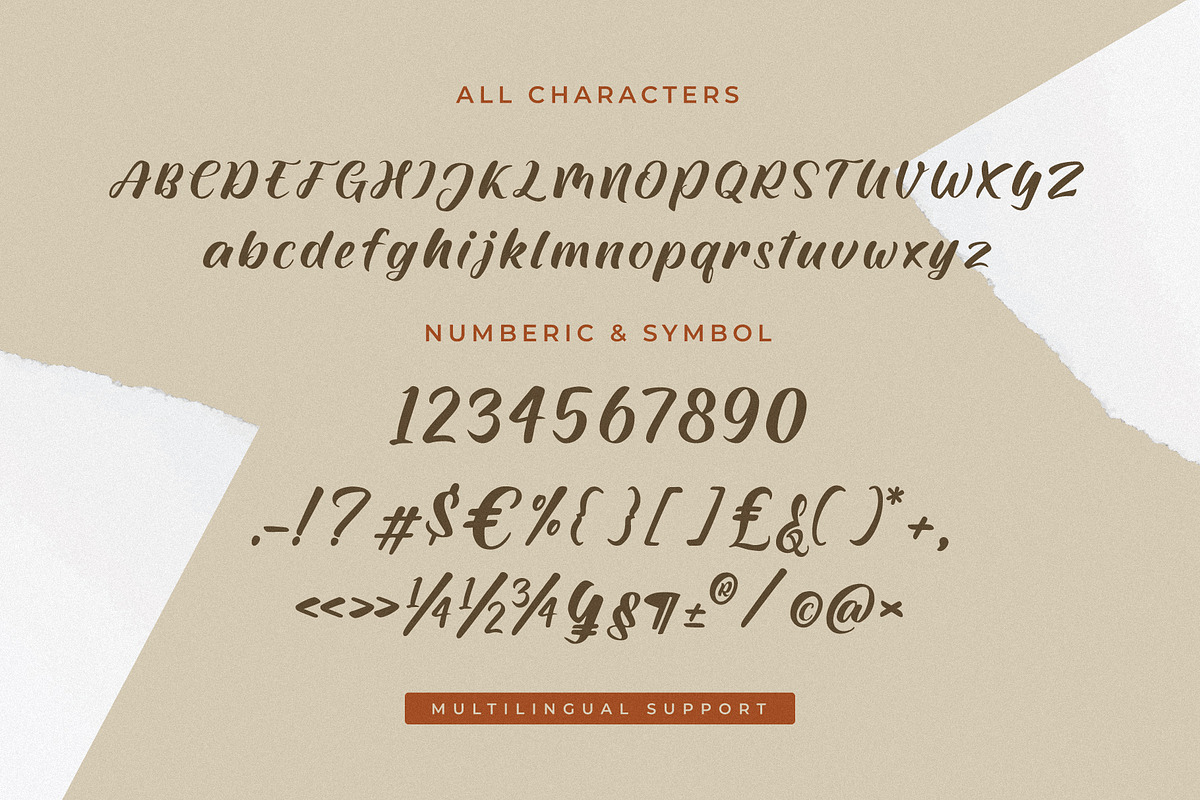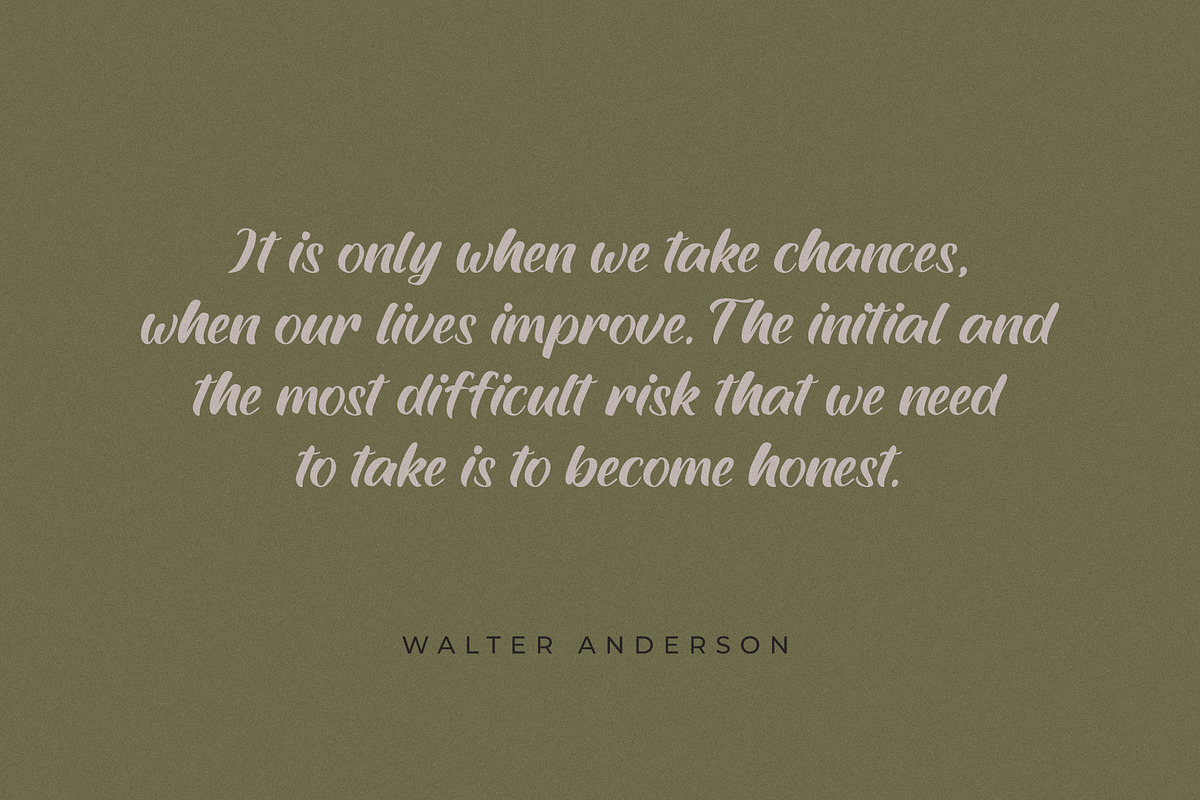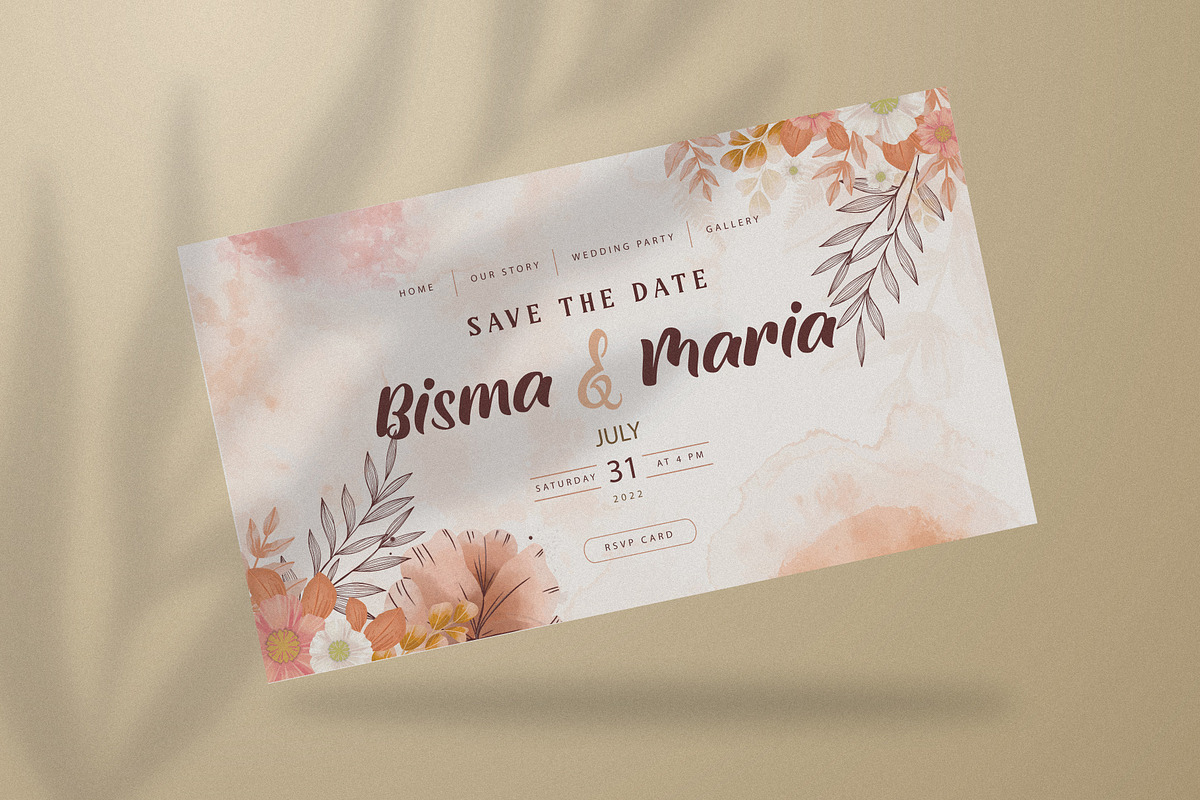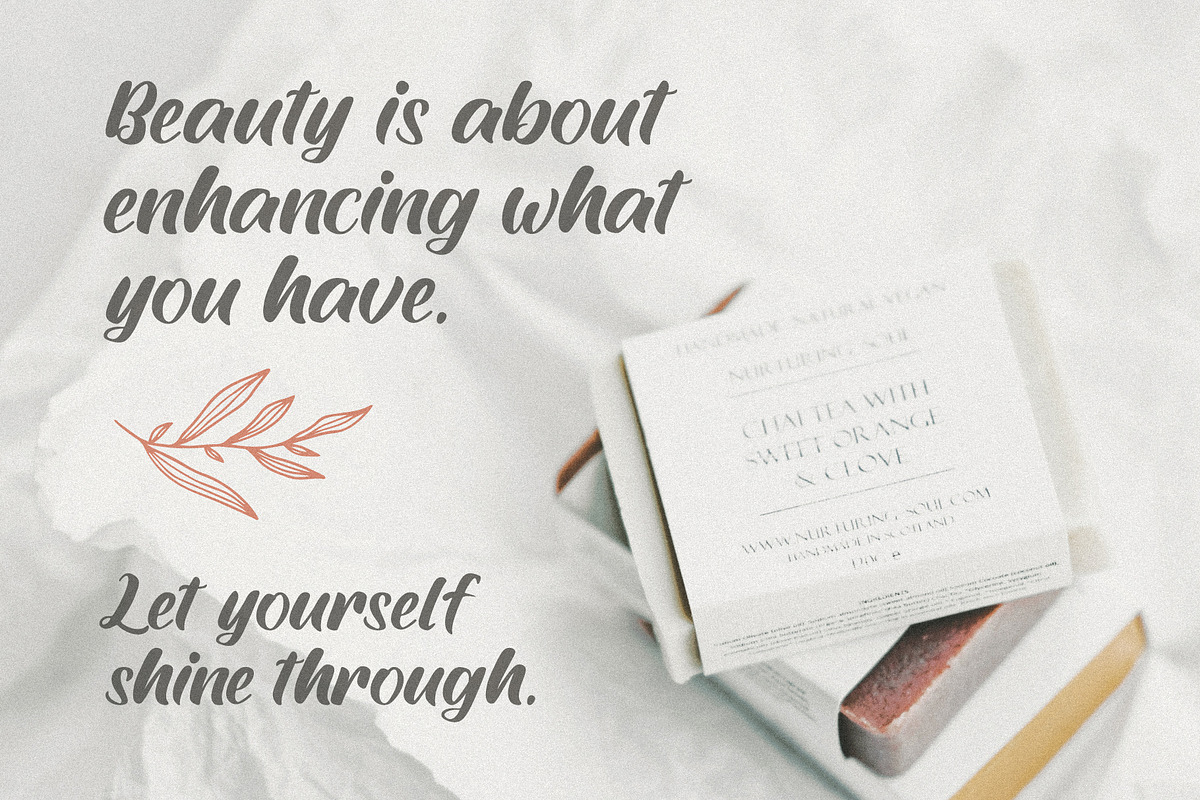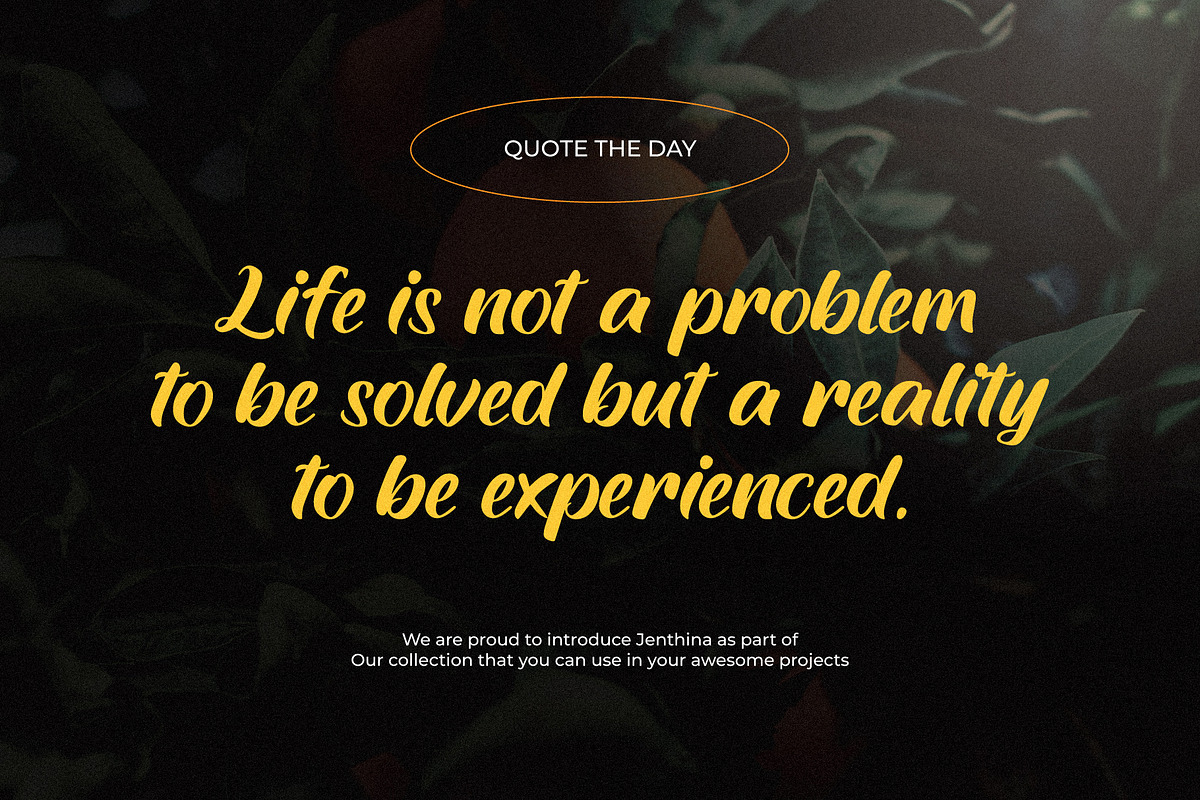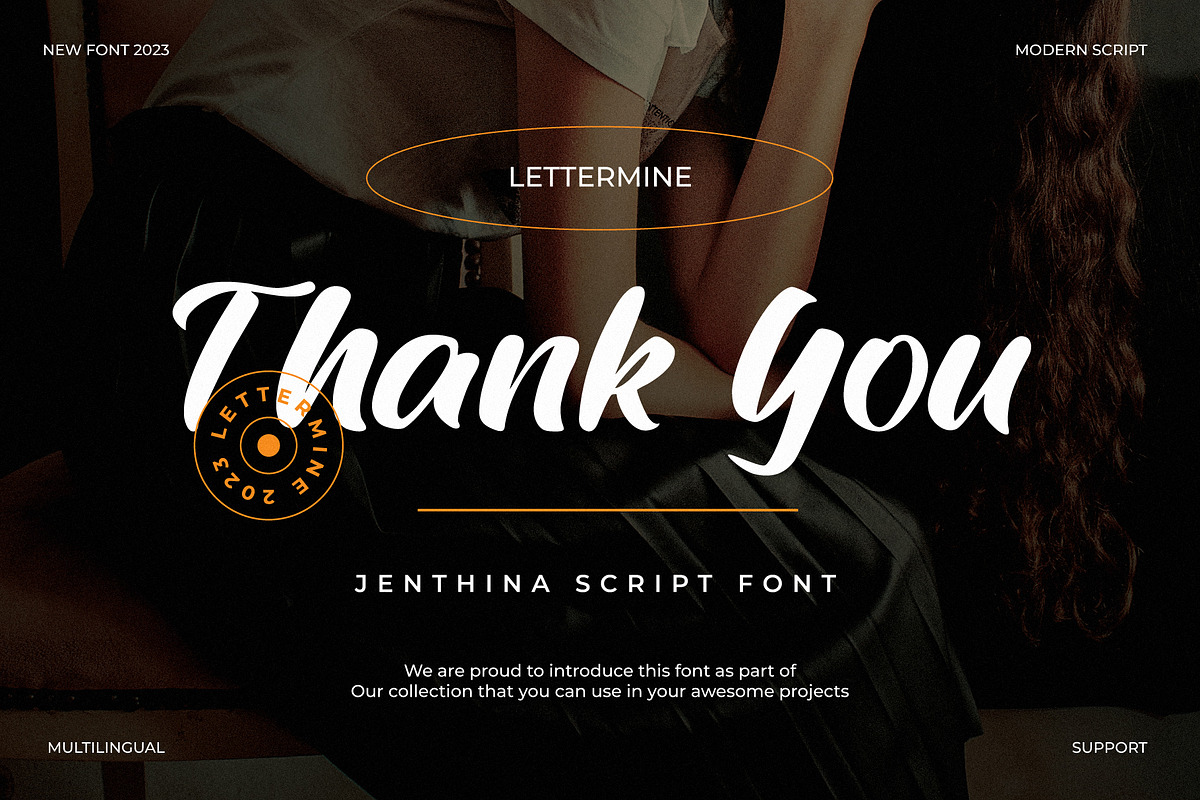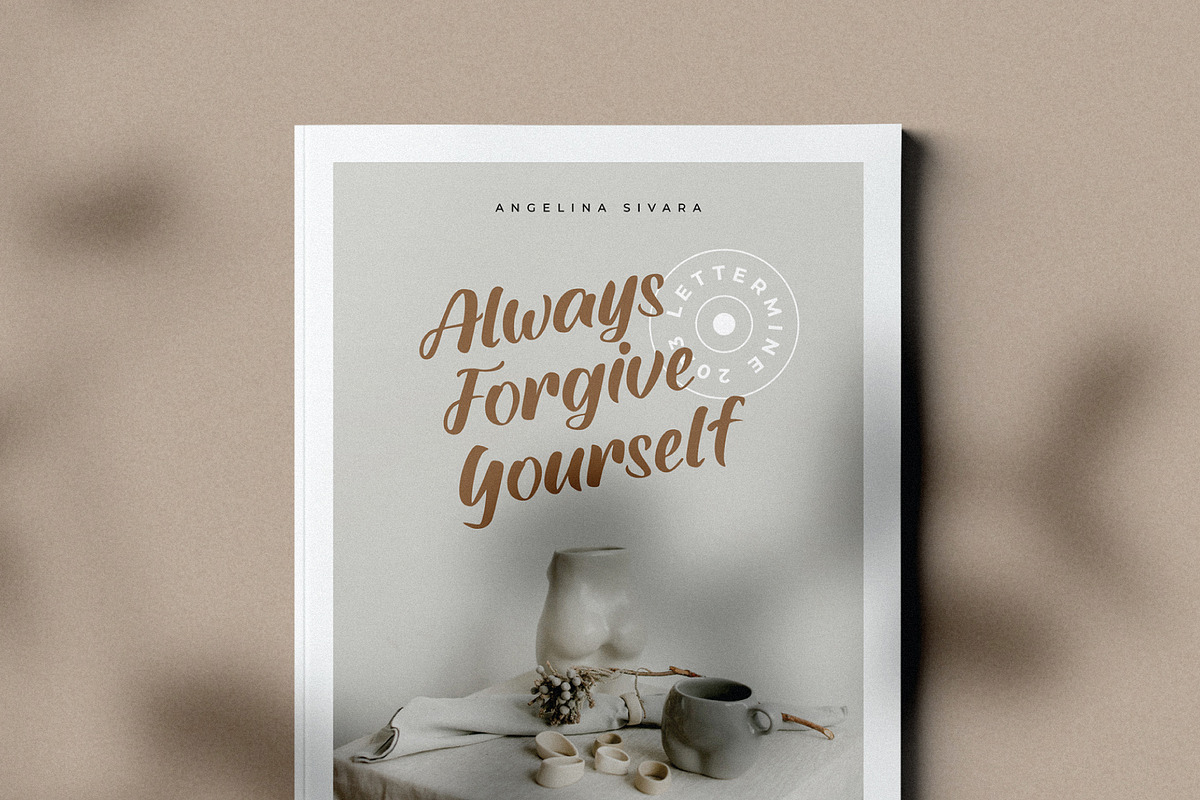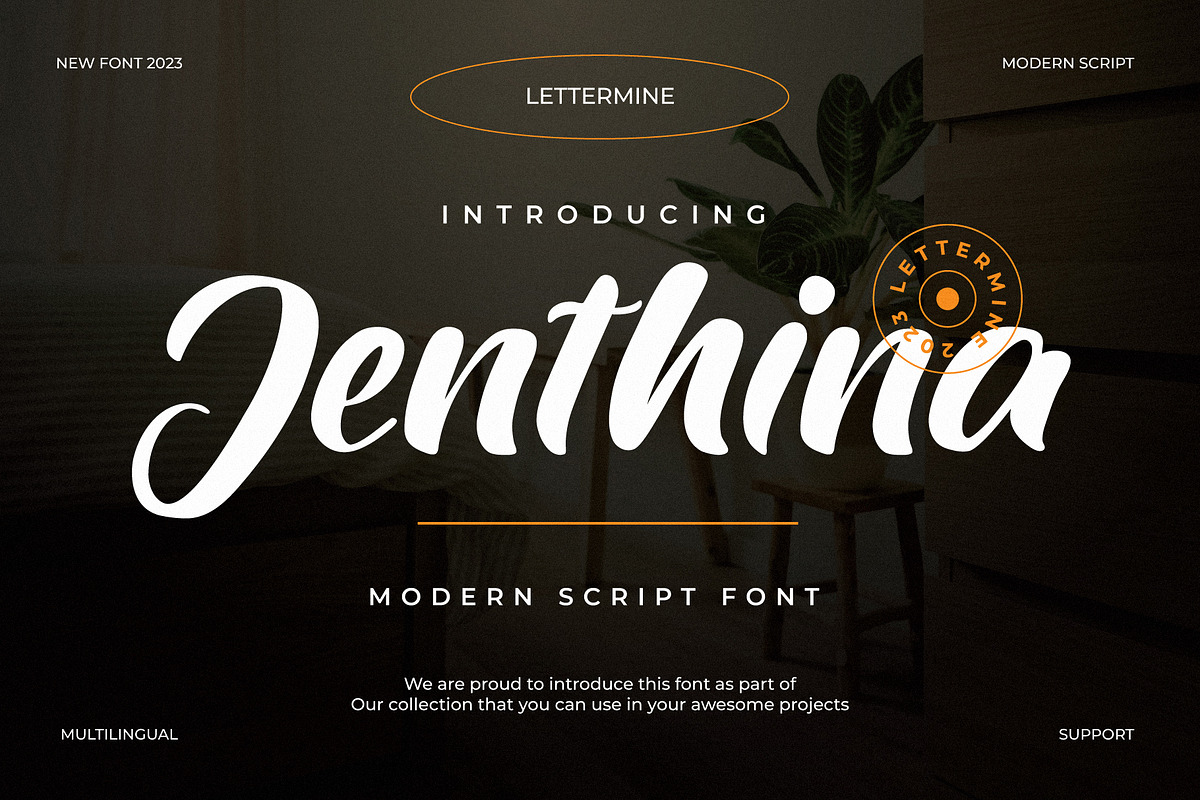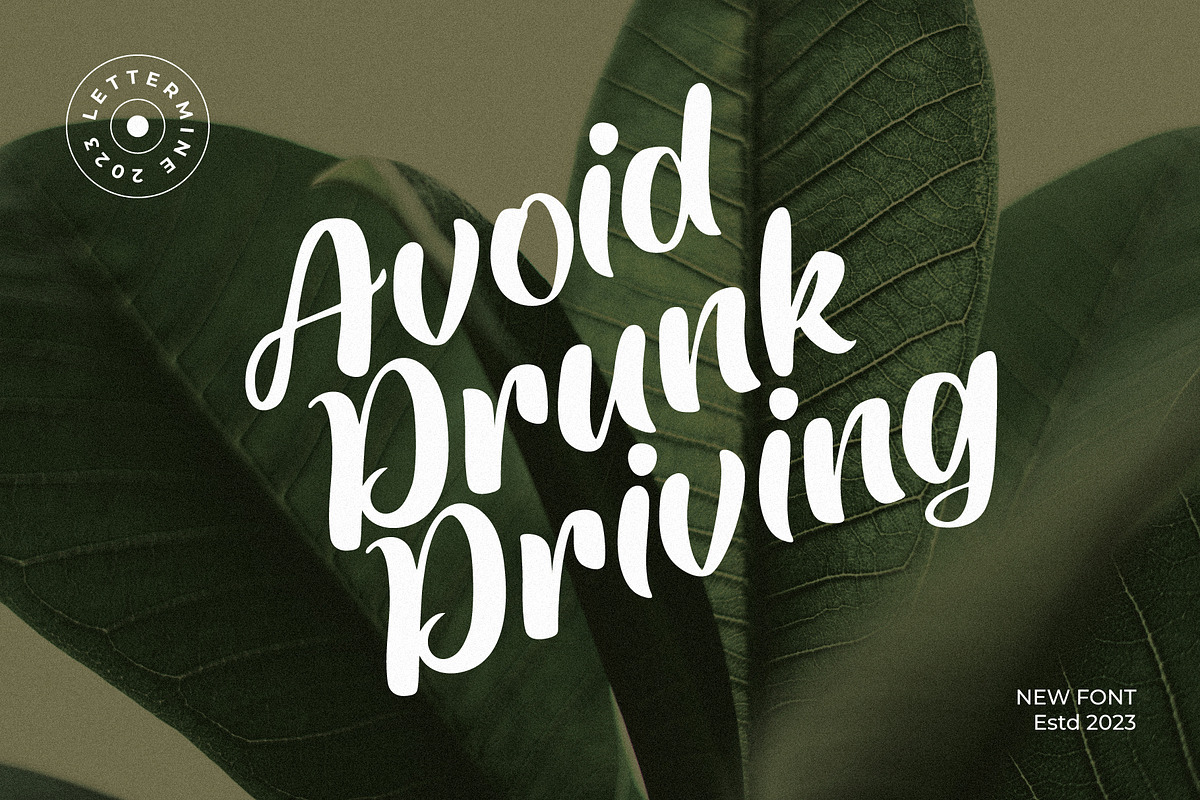
Jenthina - Handwritted Font
A captivating and versatile Handwritten font designed to add a touch of elegance and modernity to any project. Whether you're designing for the fashion industry, food industry, or various celebratory occasions like weddings, birthdays, or engagements, this font is your perfect companion. With its stylish and contemporary Handwritted Font, Jenthina - Handwritted Font effortlessly captures attention and elevates your designs to new heights.
- Uppercase and Lowercase: With carefully crafted uppercase and lowercase letterforms, Jenthina - Handwritted Font offers optimal flexibility in your designs.
- Symbols and Numerals: In addition to letter characters, Jenthina - Handwritted Font also provides elegant symbols and numerals, offering convenience in creating cohesive and comprehensive designs.
- Multilingual Support: The multilingual support enables you to reach a global audience with ease. Jenthina - Handwritted Font includes the necessary characters for major languages worldwide.